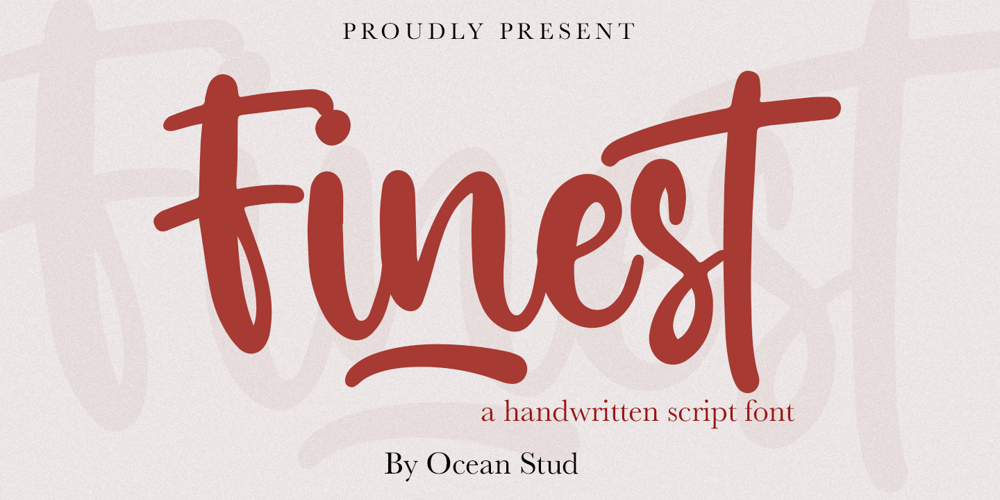
Finest Font Family was designed by Laire Banyu and published by The Ocean Studio. Finest contains 1 styles and family package options. Finest is a elegant handwritten font. The handwritten combined with Tail/swash font will make your design project more beautiful. Made for any professional project branding. It is the best for logos, branding and quotes.Features:– Beautiful Ligatures– Multilingual Support– PUA Encoded– Numerals and PunctuationThank you for downloading from Ocean Stud.